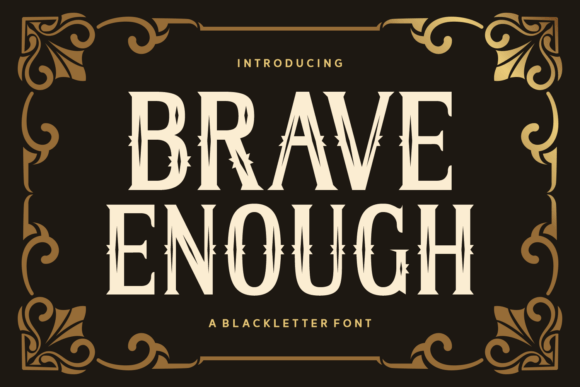
Brave Enough Font: Unleash the Power of Blackletter Typography
The world of typography is vast and diverse, with countless fonts to choose from, each with its unique character and style. Among these, blackletter fonts hold a special place, evoking a sense of nostalgia and grandeur. One such font that has been making waves in the design community is the “Brave Enough” font, a stunning blackletter typeface that is as decorative as it is bold. In this article, we’ll delve into the world of “Brave Enough” font, exploring its features, uses, and what makes it a standout choice for designers.
A promotional image introducing βBrave Enough,β a blackletter font.
What is Brave Enough Font?
“Brave Enough” is a blackletter font that boasts a highly decorative and bold design. Its unique, thorny βspurβ details within the letterforms make it an eye-catching choice for any design project. The font’s intricate details and ornate feel are reminiscent of traditional blackletter typography, with a modern twist that sets it apart from more traditional typefaces.
Key Features of Brave Enough Font
- Highly Decorative: The font features intricate, thorny details that add a touch of elegance and sophistication to any design.
- Unique Letterforms: Each letterform is carefully crafted to showcase the font’s distinctive style, making it perfect for creating eye-catching headlines and titles.
- Bold and Impactful: The font’s bold design ensures that your text will stand out, making it ideal for posters, labels, and other design projects where you want to make a statement.
- Vintage Feel: The font’s blackletter style and ornate details evoke a sense of nostalgia, making it perfect for designs that require a vintage or retro aesthetic.
Uses of Brave Enough Font
The “Brave Enough” font is incredibly versatile, making it suitable for a wide range of design projects. Here are some of the most popular uses for this stunning font:
- Vintage Branding: The font’s unique style and ornate details make it perfect for creating vintage-inspired brand identities, including logos, packaging, and advertising materials.
- Posters and Flyers: The font’s bold design and eye-catching details make it ideal for creating striking posters and flyers that will grab attention.
- Labels and Packaging: The font’s decorative style makes it perfect for creating labels and packaging materials that require a touch of elegance and sophistication.
- Headings and Titles: The font’s bold design and unique letterforms make it perfect for creating eye-catching headings and titles for articles, blog posts, and other written content.
Why Choose Brave Enough Font?
With so many fonts to choose from, why should you choose “Brave Enough” for your design project? Here are just a few reasons why this font stands out:
- Unique Style: The font’s distinctive style and ornate details ensure that your design will stand out from the crowd.
- High-Quality Design: The font is carefully crafted to ensure that it is both visually appealing and highly legible.
- Versatility: The font is suitable for a wide range of design projects, from vintage branding to modern posters and flyers.
In conclusion, the “Brave Enough” font is a stunning blackletter typeface that is sure to make a statement in any design project. Its unique style, ornate details, and bold design make it perfect for creating eye-catching headings, titles, and labels. Whether you’re looking to create a vintage-inspired brand identity or a modern poster, this font is sure to impress. So why not give it a try and see the impact it can have on your design?